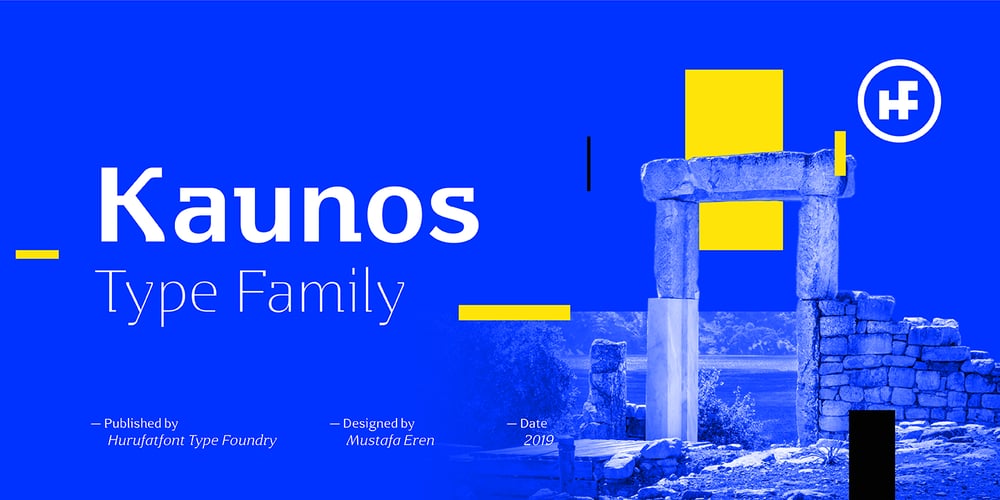
Kaunos Font Family was designed by Mustafa Eren and published by Hurufatfont. Kaunos contains 13 styles and family package options. Kaunos creates eclectic and moderns structure by combining sansserif, slabserif and calligraphic elements in a single body. Kaunos designed by Mustafa Eren who is well accepted first typeface designer and calligraphy master by Turkey’s Leraset catalog. Kaunos may be use for posters, headlines, modern and, experimental designs. It consist of 16 style of 8 weights and, italic versions of that weights. Kaunos includings; – 390+ Glyph – OpenType Features – Stylistic Alternates – Standart Ligatures – Discretionary Ligatures – Contextual Alternates